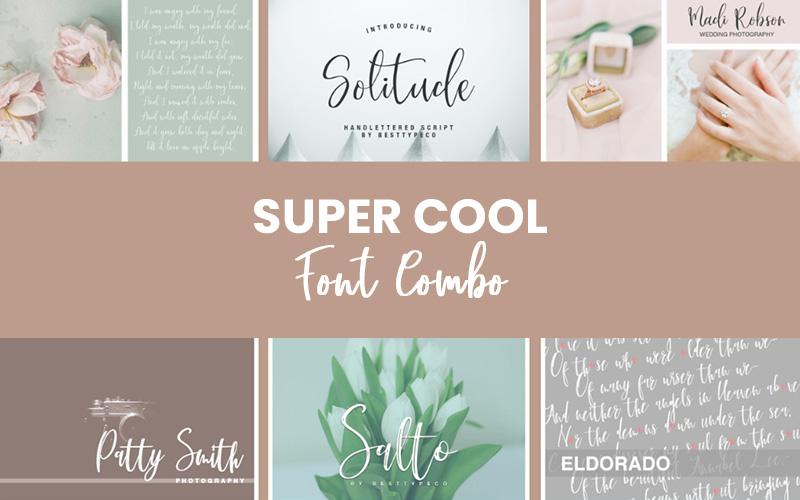
2 Super Cool Fonts Bundle
2 Cool Fonts Included In This Bundle:
Solitude Font
Salto Font
Solitude Font:
Solitude – a new handwritten calligraphy font. This font is suitable for greeting cards, branding materials, business cards, quotes, posters, and more!
Salto Font
Salto is a perfect font to create unique design of your logo, blog, stationery, marketing, magazines and more.